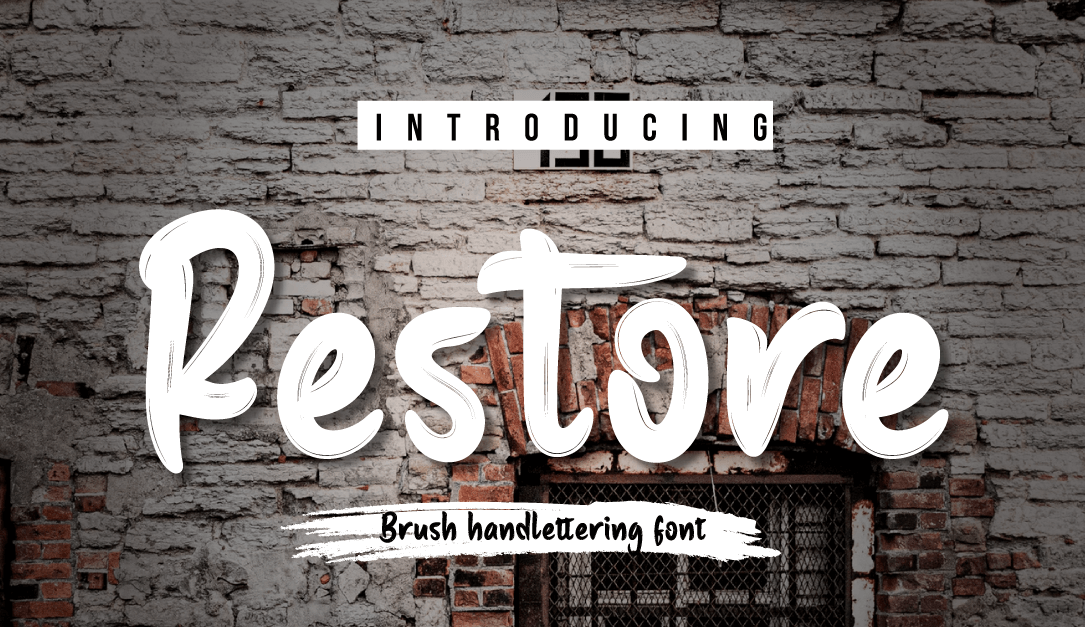
Restore Font
Restore is a brush handwritten font. This font is the perfect font for making original and outstanding designs.
This font is perfect for strong text with displays for a wide variety of branding, advertising, posters, banners, packaging, podcasts, outdoor activities, apparel, quote, beverage, and more.